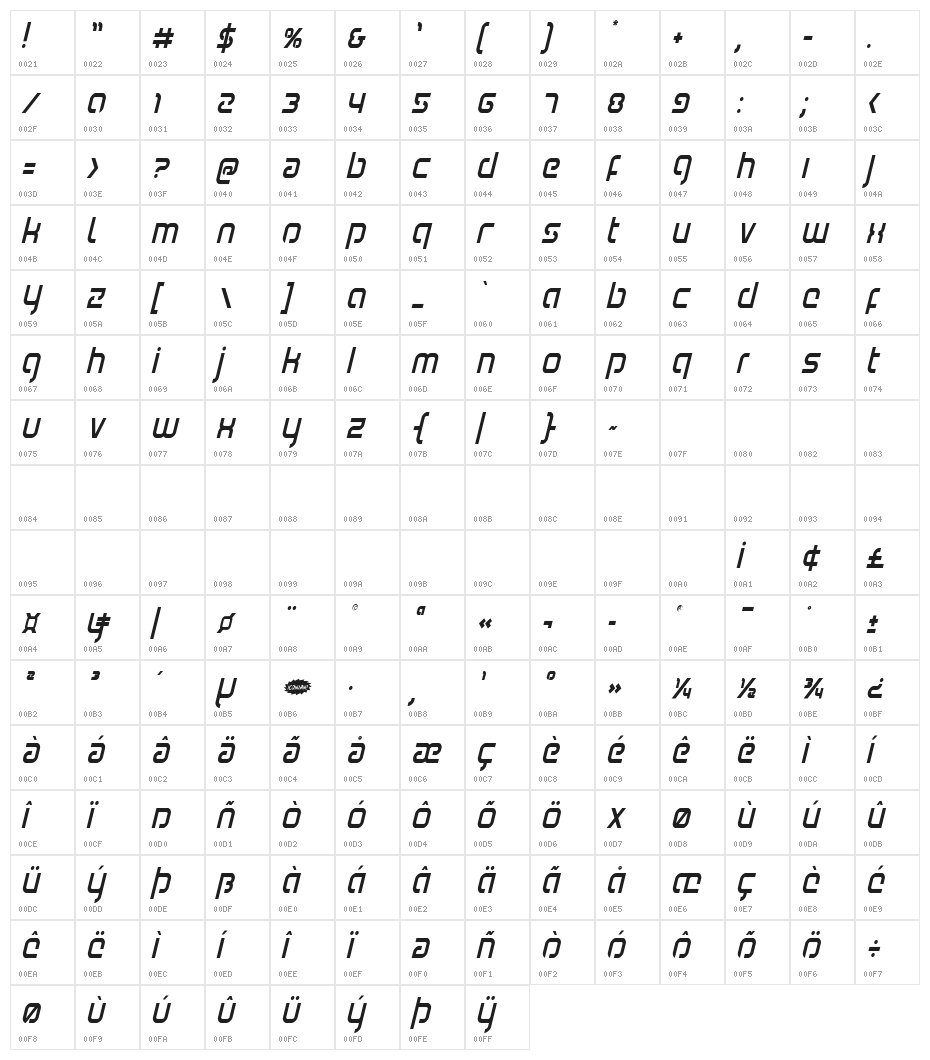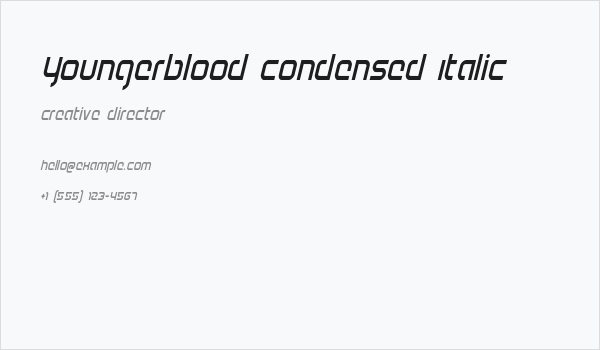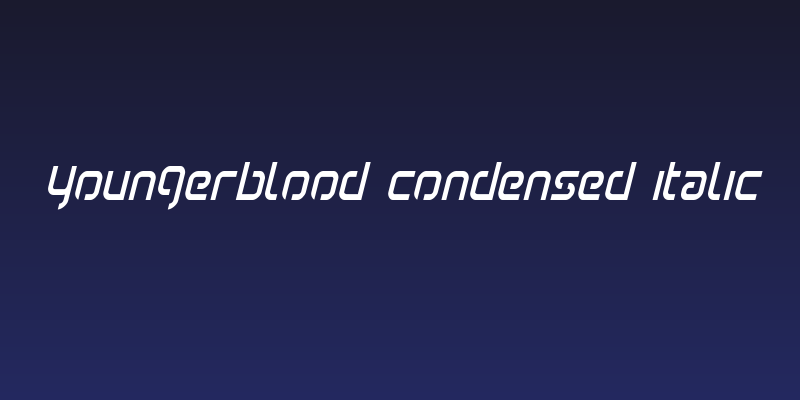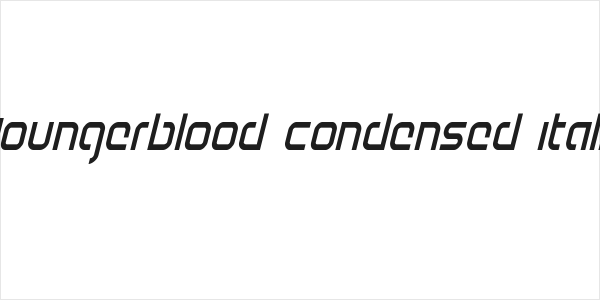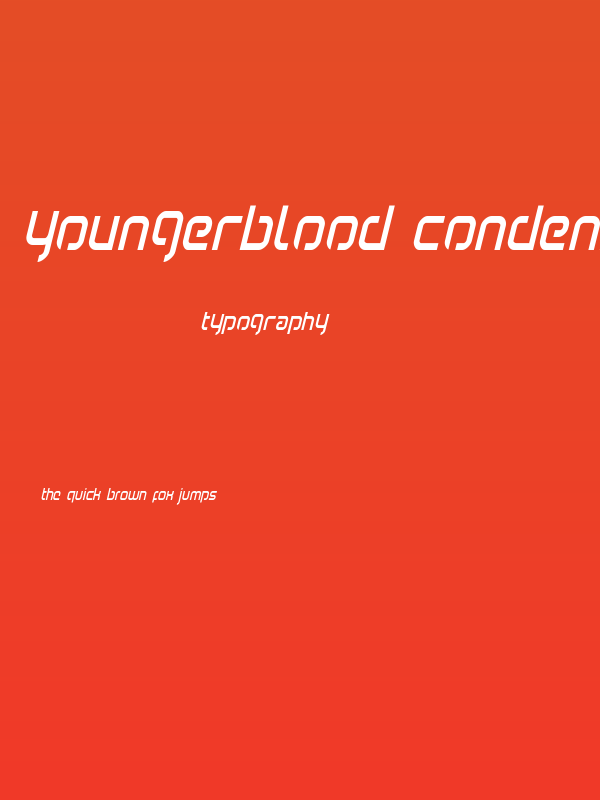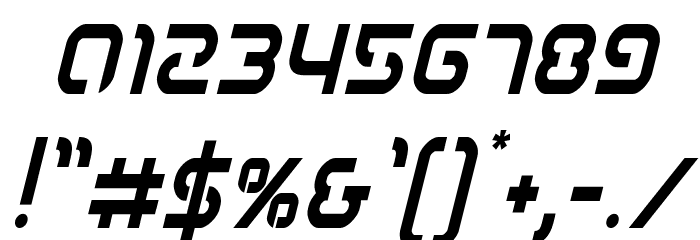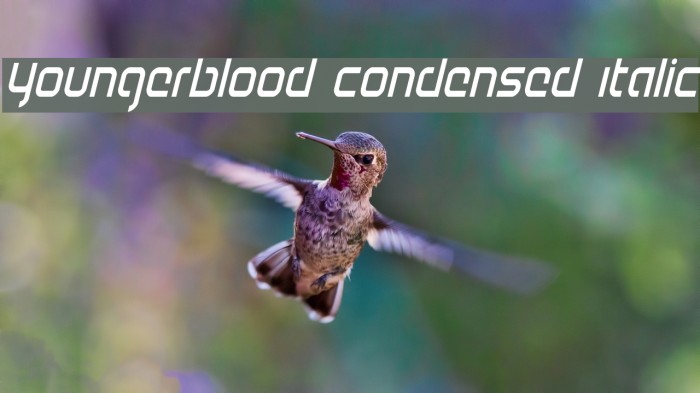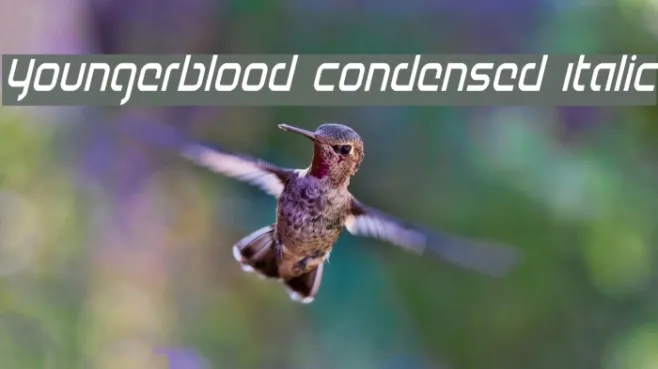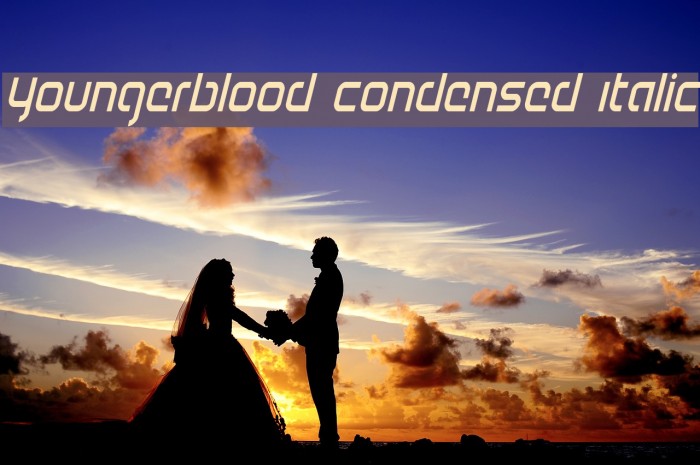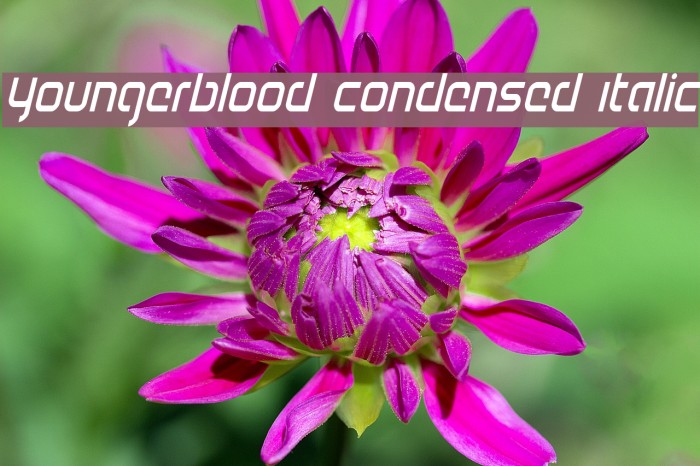
Youngerblood Condensed Italic Font
Youngerblood Condensed Italic Description
This font features a modern, sleek design with a condensed and italicized style. The characters are slightly slanted, giving a dynamic and forward-moving appearance. The strokes are consistent in width, providing a uniform look across all characters. The font maintains a clean and futuristic aesthetic, making it suitable for contemporary designs. The lowercase and uppercase letters are well-proportioned, and the numerals are clear and easy to read. Special characters are distinct and maintain the overall style of the font, ensuring versatility in various design applications.
| Use Case | Logos, Headlines, Branding |
| Proposed Projects | Ideal for tech branding, modern advertising, sports team logos, and futuristic design projects. |